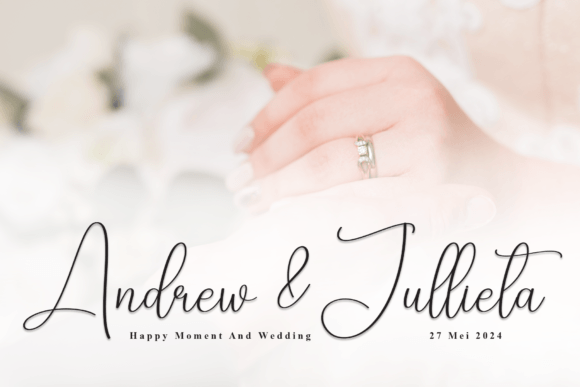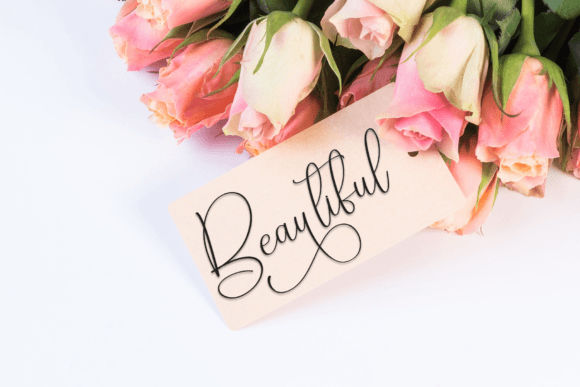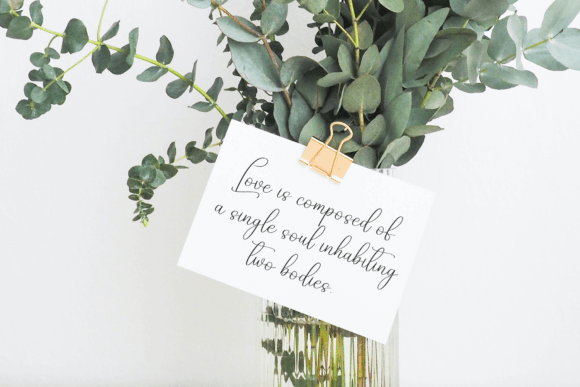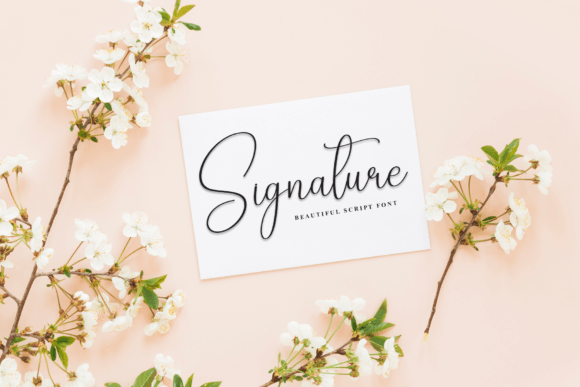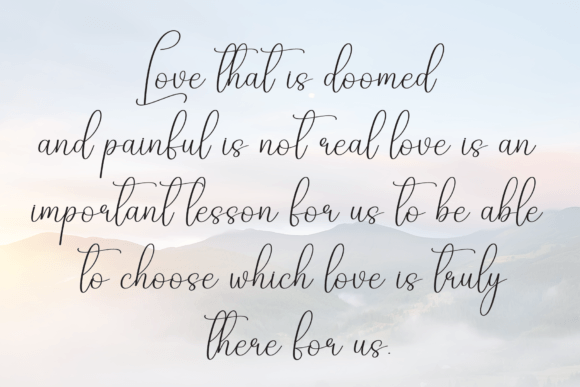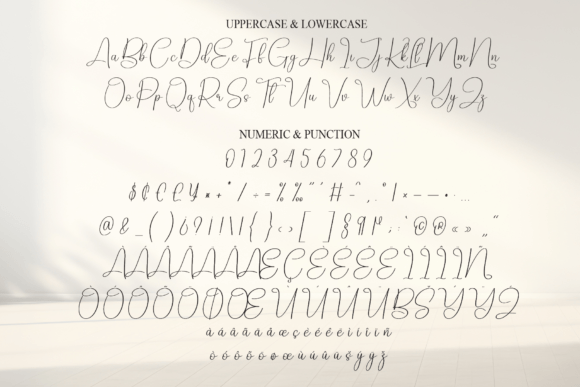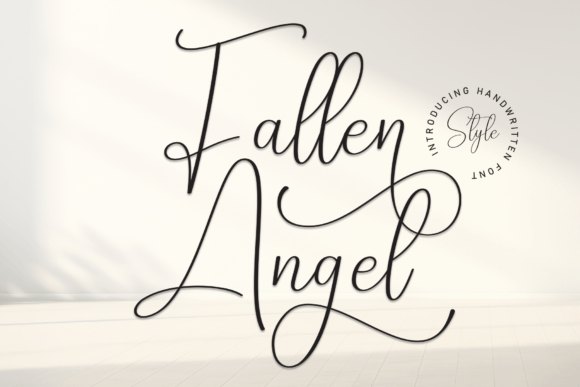
Fallen Angel Font: Elevate Your Designs with Elegance and Sophistication
In the world of typography, fonts play a crucial role in conveying the tone and personality of a design. For designers and crafters seeking to add a touch of elegance and class to their projects, the Fallen Angel Font is an excellent choice. This trendy handwritten font boasts a contemporary atmosphere and impeccable form, inspired by timeless classic calligraphy.
The Inspiration Behind Fallen Angel Font
Fallen Angel Font draws inspiration from traditional calligraphy, with a modern twist. The font’s creator aimed to capture the essence of classic calligraphy, while infusing it with a fresh and contemporary feel. The result is a font that exudes sophistication and refinement, perfect for designs that require a high level of elegance.
Key Features of Fallen Angel Font
- Trendy and Handwritten: Fallen Angel Font features a handwritten style that is both trendy and versatile. Its unique character makes it suitable for a wide range of design projects.
- Contemporary Atmosphere: The font’s modern take on classic calligraphy gives it a fresh and contemporary atmosphere, perfect for designs that require a touch of sophistication.
- Impeccable Form: The font’s impeccable form ensures that it is legible and easy to read, making it suitable for body text and headlines.
- Elegant and Classy: Fallen Angel Font adds a touch of elegance and class to any design project, making it perfect for luxury brands, wedding designs, and high-end products.
Uses of Fallen Angel Font
Fallen Angel Font is a versatile font that can be used in a variety of design projects, including:
- Logo Design: The font’s elegant and classy feel makes it perfect for logo design, especially for luxury brands and high-end products.
- Wedding Design: Fallen Angel Font is a popular choice for wedding designs, including invitations, save-the-date cards, and wedding stationery.
- Packaging Design: The font’s contemporary atmosphere and impeccable form make it suitable for packaging design, especially for high-end products.
- Digital Design: Fallen Angel Font can be used in digital design, including website headers, social media graphics, and email marketing campaigns.
Tips for Using Fallen Angel Font
To get the most out of Fallen Angel Font, here are some tips to keep in mind:
- Pair it with a Sans-Serif Font: Pairing Fallen Angel Font with a sans-serif font creates a beautiful contrast and adds visual interest to your design.
- Use it for Headlines and Titles: The font’s elegant and classy feel makes it perfect for headlines and titles, while a sans-serif font can be used for body text.
- Experiment with Colors: Fallen Angel Font looks great in a variety of colors, from metallic gold and silver to rich jewel tones.
Fallen Angel Font is a trendy handwritten font that adds elegance and class to any design project. Its contemporary atmosphere and impeccable form make it perfect for a wide range of designs, from luxury brands to wedding stationery. With its versatility and timeless appeal, Fallen Angel Font is a great addition to any designer’s font library.